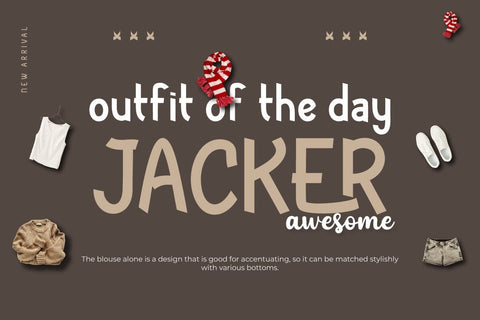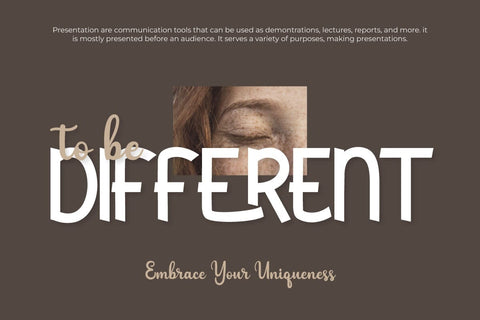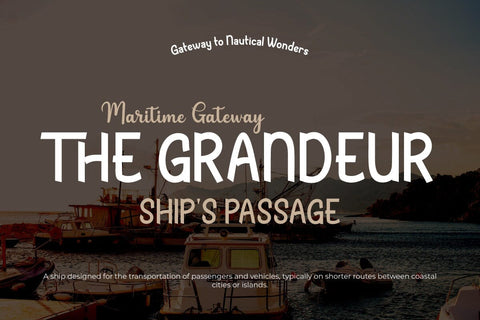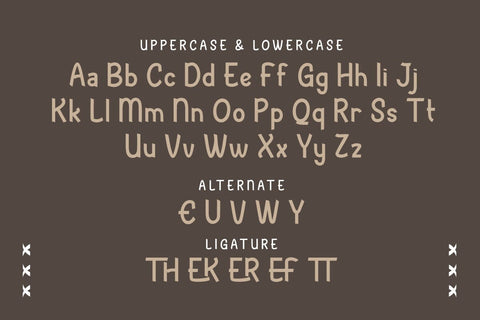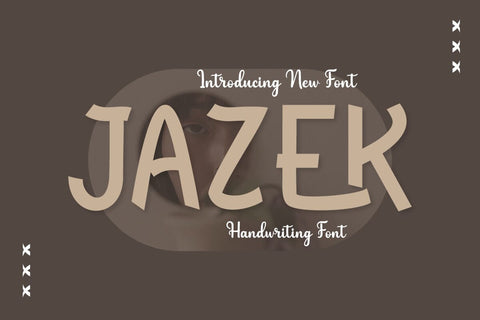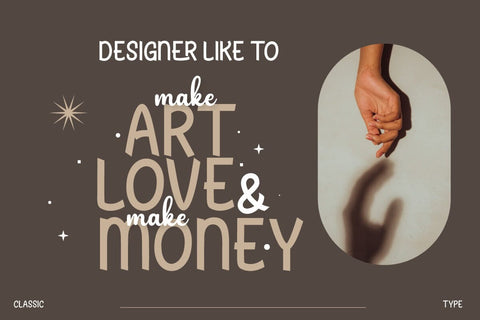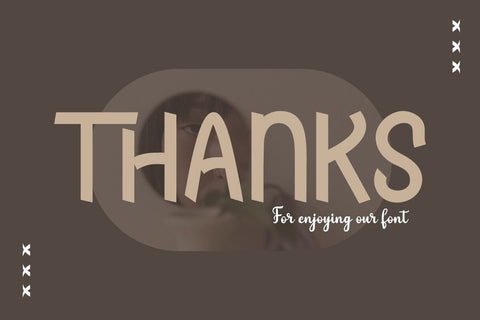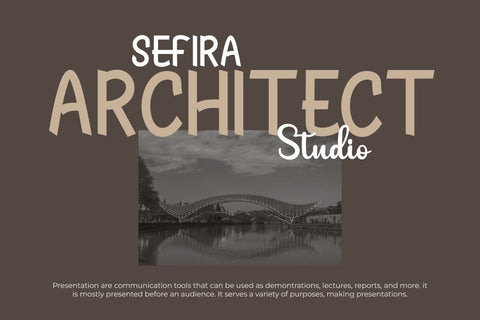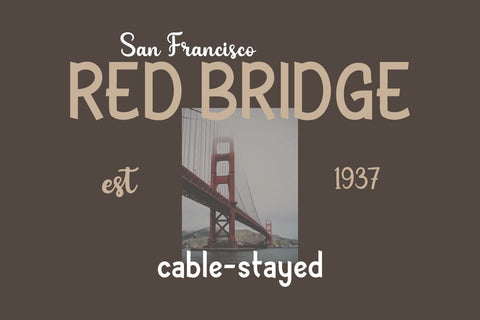
Jazek - Handwriting Font
"Welcome to the typographic world of creativity! A display font with a genuinely distinctive handwritten look is called Jazek. Jazek is the ideal option if you want a powerful and distinctive look for your various visual design tasks. What sets Jazek apart? Unrestricted imagination. Jazek allows you the freedom to produce character-rich and distinctive letter designs thanks to the various ligatures and alternates. You have the opportunity to use originality in each assignment. We value effective communication with a global audience, which is why Jazek supports a variety of tongues. Your message will be able to resonate with a variety of global audiences thanks to Jazek. Prepare yourself to produce memorable and inspirational designs. Purchase Jazek right away to see how it can convert any of your projects into captivating works of typographic art.